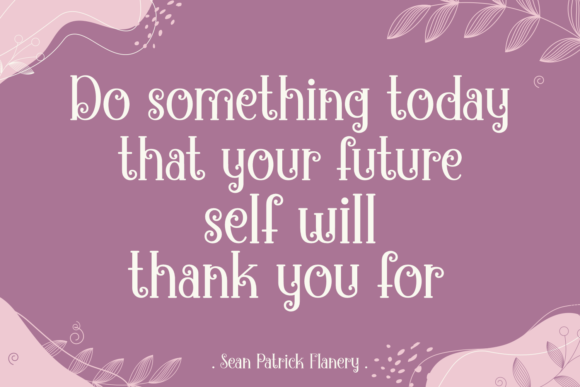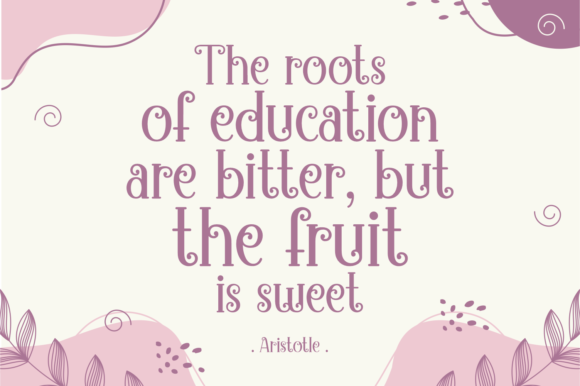
Introducing Curly Sweety Font: The Ultimate Display Font for Creative Projects
Are you tired of using the same old fonts for your design projects? Look no further than Curly Sweety Font, a whimsical display font that embodies fun, quirkiness, and authenticity. This charming font is perfect for designers and crafters who want to add a touch of personality to their work. With Curly Sweety, you can turn any creative idea into a true standout and elevate your design projects to the highest level.
The Characteristics of Curly Sweety Font
Curly Sweety Font is a unique and eye-catching display font that boasts a range of characteristics that make it perfect for a wide range of design projects. Some of its key features include:
- Whimsical design: Curly Sweety Font has a playful and quirky design that adds a touch of fun to any project.
- Authentic feel: This font has an authentic feel that makes it perfect for designers who want to create unique and original work.
- High versatility: Curly Sweety Font can be used for a wide range of design projects, from branding and headings to wedding designs, invitations, signatures, logos, labels, and more.
Uses for Curly Sweety Font
Curly Sweety Font is an incredibly versatile font that can be used for a wide range of design projects. Here are some ideas to get you started:
- Branding: Use Curly Sweety Font to create unique and eye-catching brand identities that stand out from the crowd.
- Wedding designs: Add a touch of whimsy and romance to your wedding designs, including invitations, programs, and decorations.
- Headings and titles: Use Curly Sweety Font to create attention-grabbing headings and titles for your blog posts, articles, and other written content.
- Invitations and greeting cards: Create unique and personalized invitations and greeting cards that showcase your creativity and style.
- Logos and labels: Use Curly Sweety Font to create custom logos and labels that add a touch of personality to your products or services.
Why Choose Curly Sweety Font?
So why should you choose Curly Sweety Font for your design projects? Here are just a few reasons:
- Unique and eye-catching: Curly Sweety Font is a one-of-a-kind font that will help your design projects stand out from the crowd.
- High-quality design: Curly Sweety Font has been designed to the highest standards, ensuring that it looks great in any design project.
Tips for Using Curly Sweety Font
Here are a few tips for using Curly Sweety Font in your design projects:
- Use it sparingly: While Curly Sweety Font is a beautiful font, it can be overwhelming if used too much. Use it sparingly to add a touch of personality to your design projects.
- Pair it with other fonts: Curly Sweety Font looks great when paired with other fonts. Experiment with different font combinations to find the perfect look for your design project.
- Experiment with different sizes and colors: Don’t be afraid to experiment with different sizes and colors of Curly Sweety Font to add visual interest to your design projects.
Curly Sweety Font is a unique and eye-catching display font that embodies fun, quirkiness, and authenticity. With its whimsical design and high versatility, this font is perfect for a wide range of design projects, from branding and headings to wedding designs, invitations, signatures, logos, labels, and more. Whether you’re a designer or crafter, Curly Sweety Font is a great addition to your font collection. So why not give it a try and see how it can elevate your design projects to the highest level?